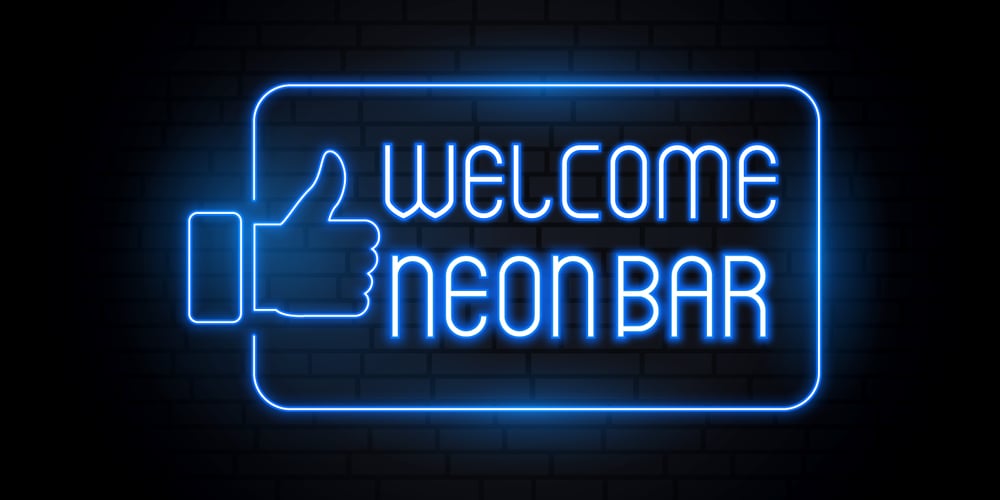
Neon Bar
Neon Bar font
Neon Bar Font Family was designed by Hamid Azzafrar and published by Zefrar. Neon Bar contains 1 styles and family package options. Neon Bar is very useful for any project related to Bar, Music, Panels, Signs and more. It has a unique style and inspired from Las Vegas Panels but the design is too modern and very fit with neon print.